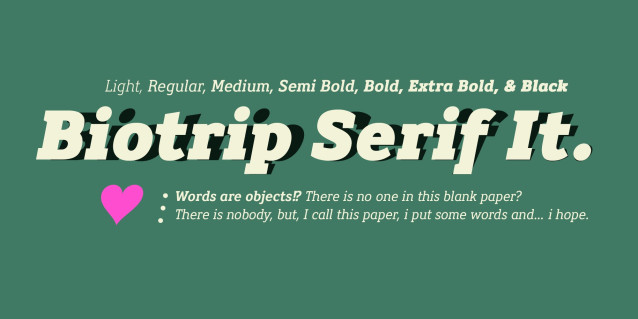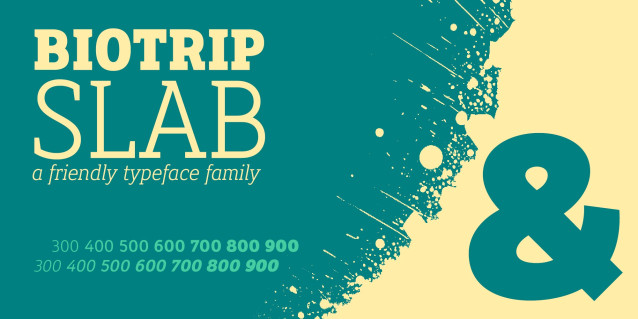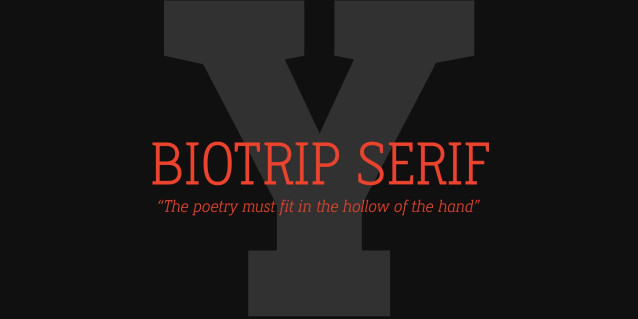
Biotrip Serif Font
Biotrip Serif Font (Roman & Italic w/07 weights) is the direct descendant of Biotrip Sans, but it’s not a faithful copy: it’s the more adventurous version, the one that decided to adopt serifs and see the world with greater boldness. It’s not a simple variant; it’s a conscious reinterpretation. Where Sans flowed freely, Serif asserts itself with confidence, combining the solidity of stone with the warmth of the hand. Thus Biotrip Serif emerged, a natural extension of my Biotrip universe: a humanist and semi-geometric Slab Serif, with a lapidary spirit and roots in classic Egyptian typefaces, reinterpreted through my own sensibility, adding gravity, texture, and character without losing the softness and humanity of the original stroke. Biotrip Serif is designed to be multipurpose. It works with the elegance of an editorial typeface, but also with the authority that a strong corporate identity demands. It’s equally at home on a poster as it is on the packaging of a product that aims to be minimalist “yet warm”—you know, that order you get every two weeks. The Complete Family: Precision and Expression Biotrip Serif comprises 14 fonts, distributed across 2 styles (Roman and Italic) and 7 weights: Light, Regular, Medium, Semi Bold, Bold, Extra Bold, and Black. A complete range for building clear hierarchies, robust visual systems, and designs with character, combining the strength of a slab serif with the softness of a humanist design, all within the same family. The family incorporates a wide typographic repertoire: – 6 complete sets of numbers for editorial and technical precision. – 3 sets of uppercase letters. – 5 sets of lowercase letters for achieving unique typographic nuances.